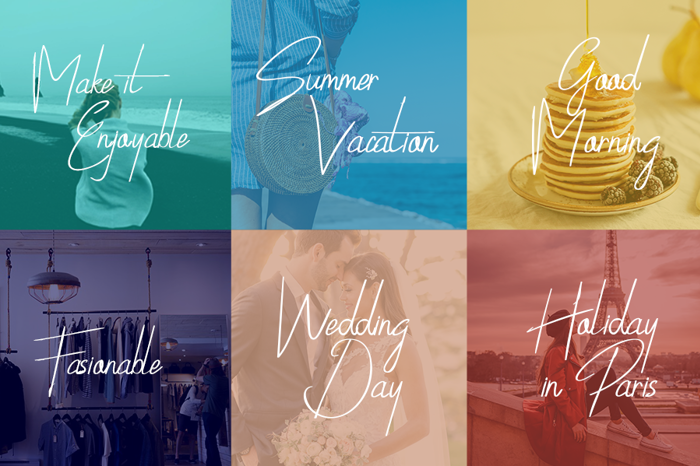
Synthia Font
Synthia handwritten font demo is a trial version of synthia hamdwritten. This font take simple of women with all their softness as inspiration and then make this font looks sophisticated classy.